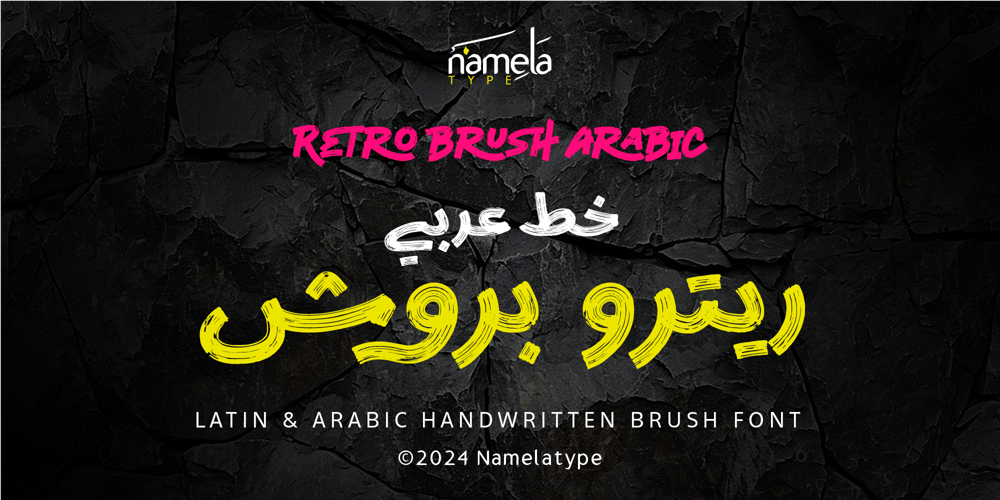
Retro Brush Arabic Font Family was designed by Nur Syamsi, Bustanul Arifin and published by NamelaType. Retro Brush Arabic contains 2 styles and family package options. Retro Brush Arabic is the sibling of Retro Brush, with with additional Arabic glyphs for more international funRetro Brush is a handwritten brush font characterized by its dry brush stroke style, which imparts a delightful texture and fluidity. It includes a variety of alternates and ligatures to enhance its handwritten appearance.